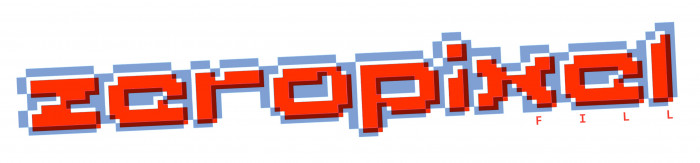
Fill-font for zeropixel, which can also work on its own. Special edition at the suggestion of Bryndan W. Meyerholt (BWM).
That sample would make a beautiful colour font...
Should probably move the top and bottom one pixel up and down respectivelt so the fonts appear the same size when placed next to one another without needing to change the font size
@four: Thanks a lot for this excellent suggestion, compa! I'm trying to adjust the overlap between the glyphs to get that or similar effect in FS using some of the previous work.
@BWM: I've created this font respecting the gaps in the original to be filled, hoping that there will be no difficulties when superimposing them. Is that what you meant?
@elmoyenique I was saying to make the top and bottom guides the same between the two fonts. 😅